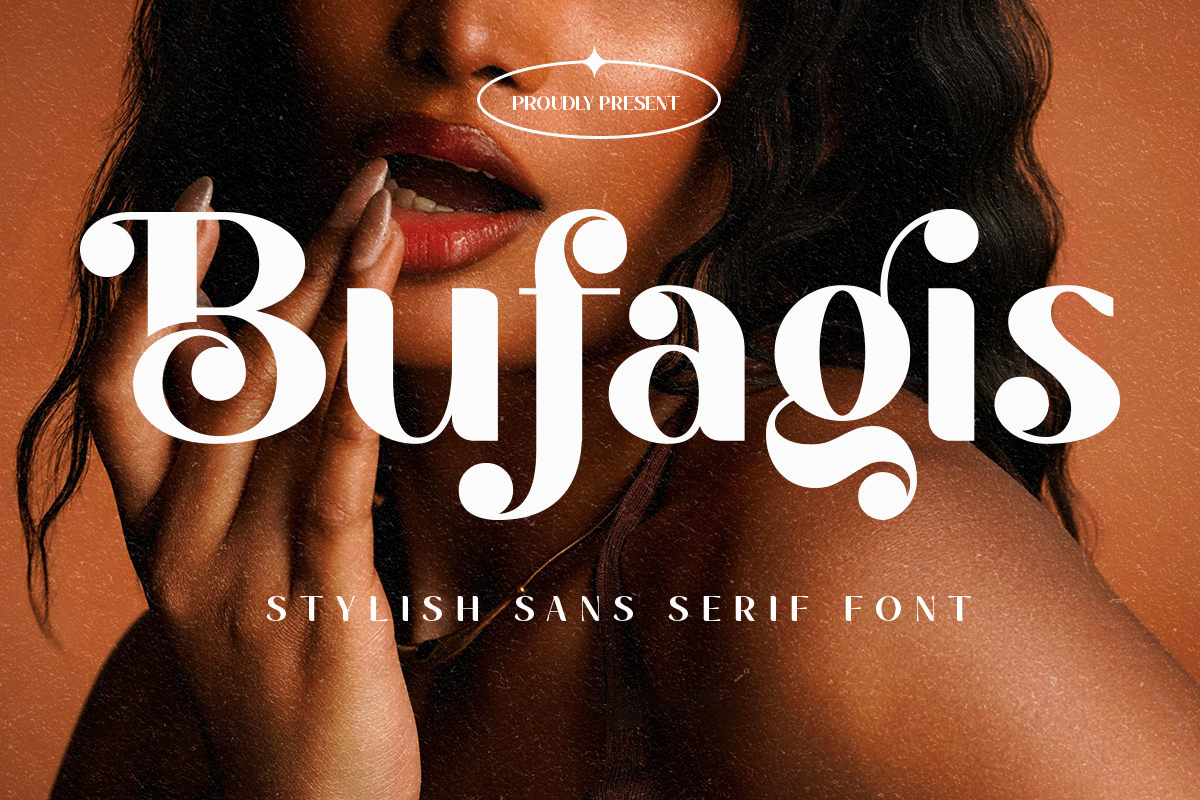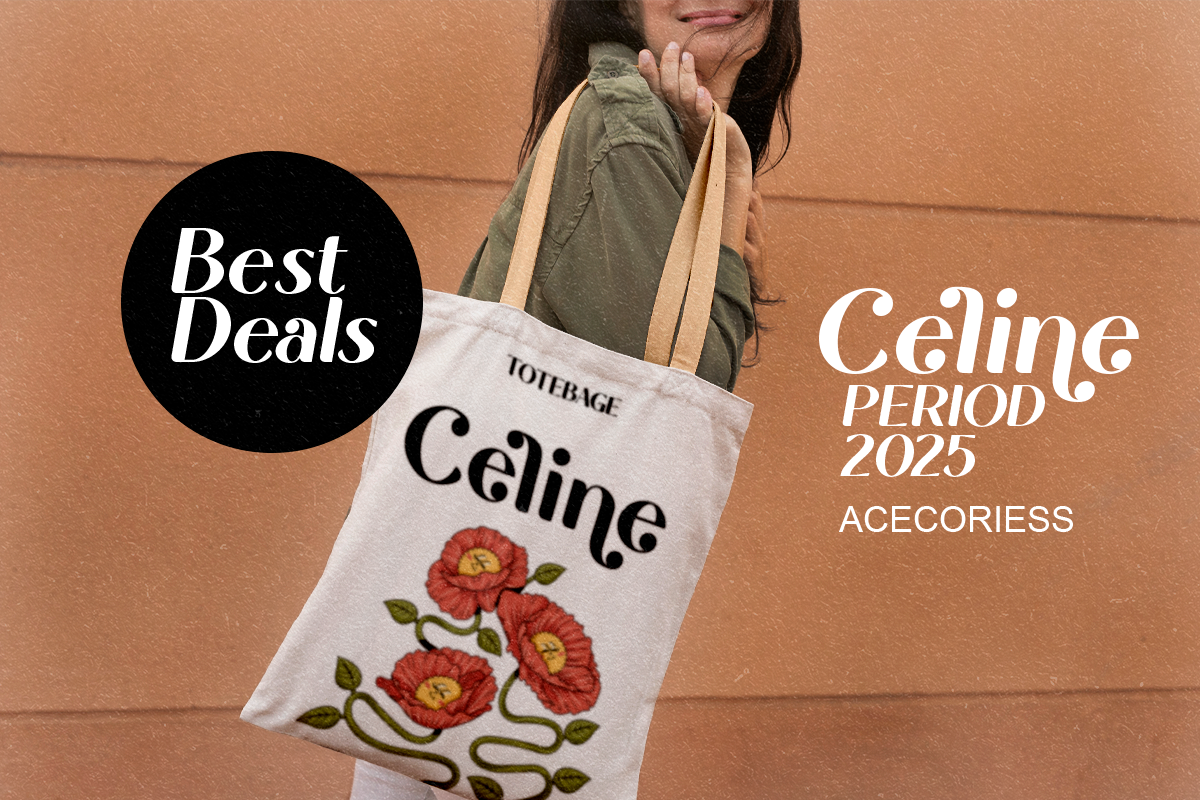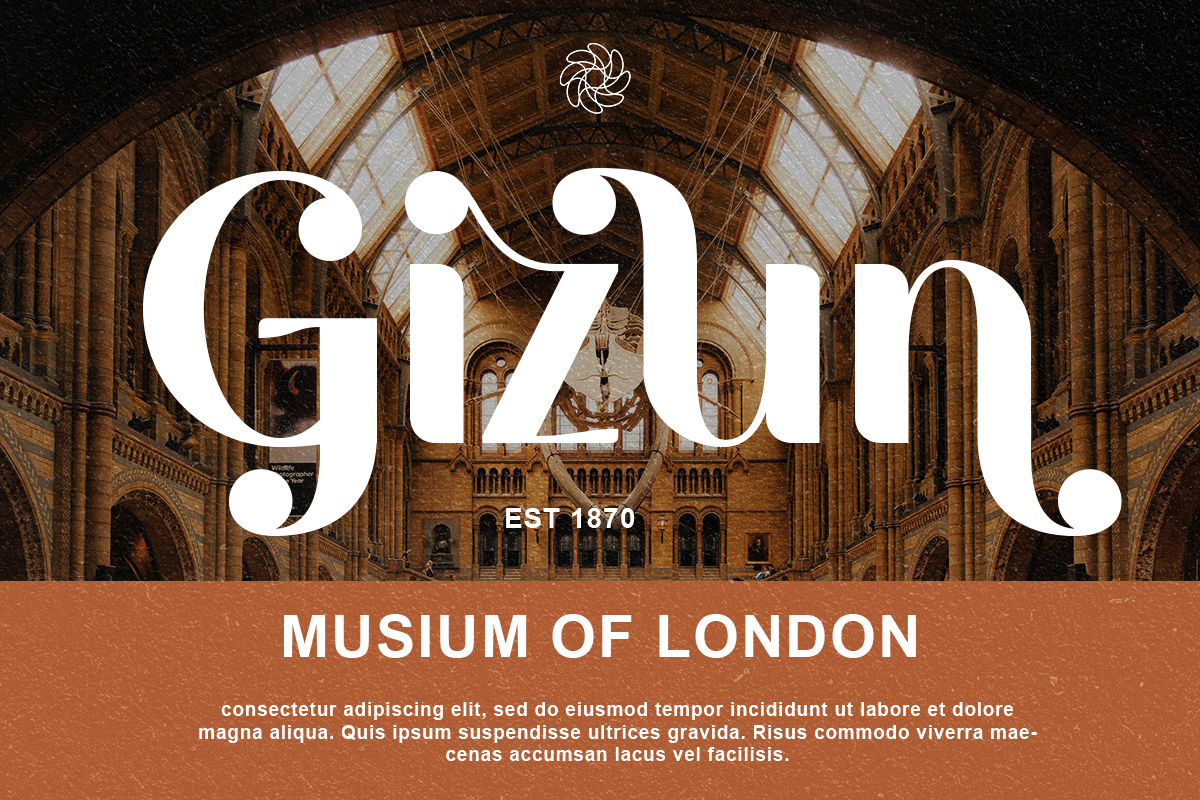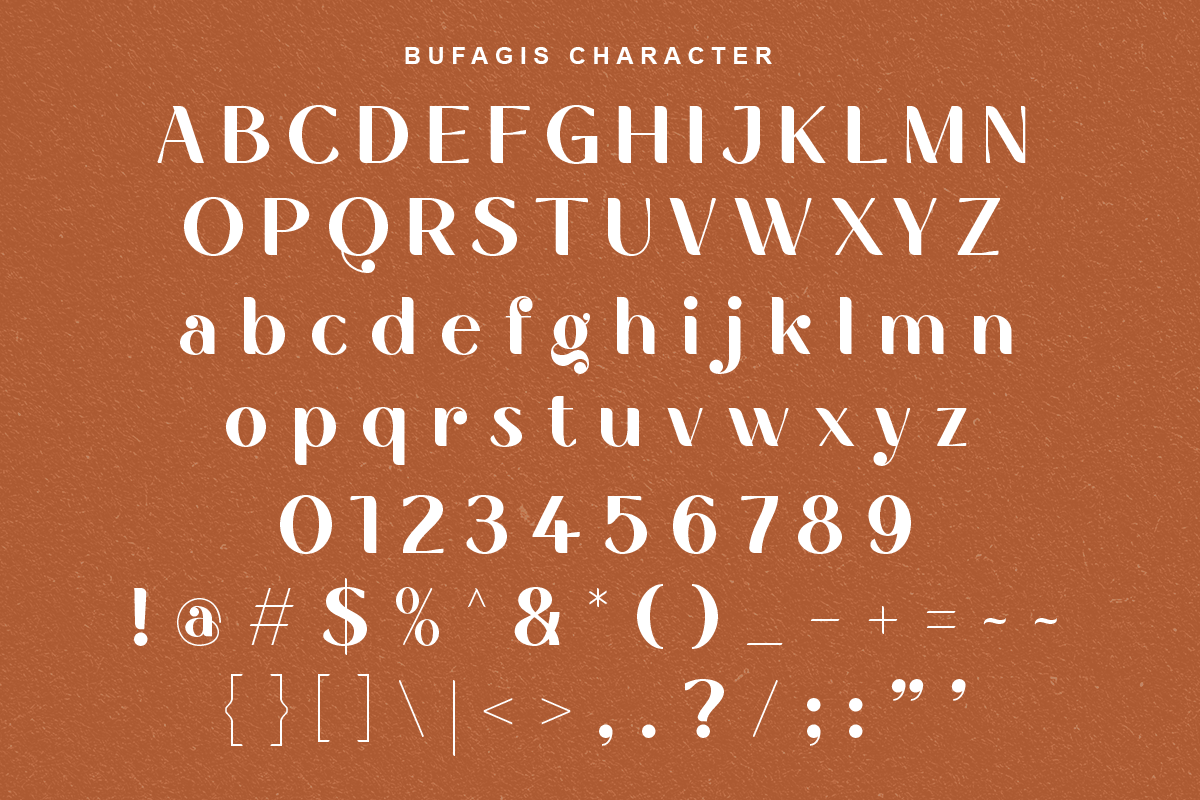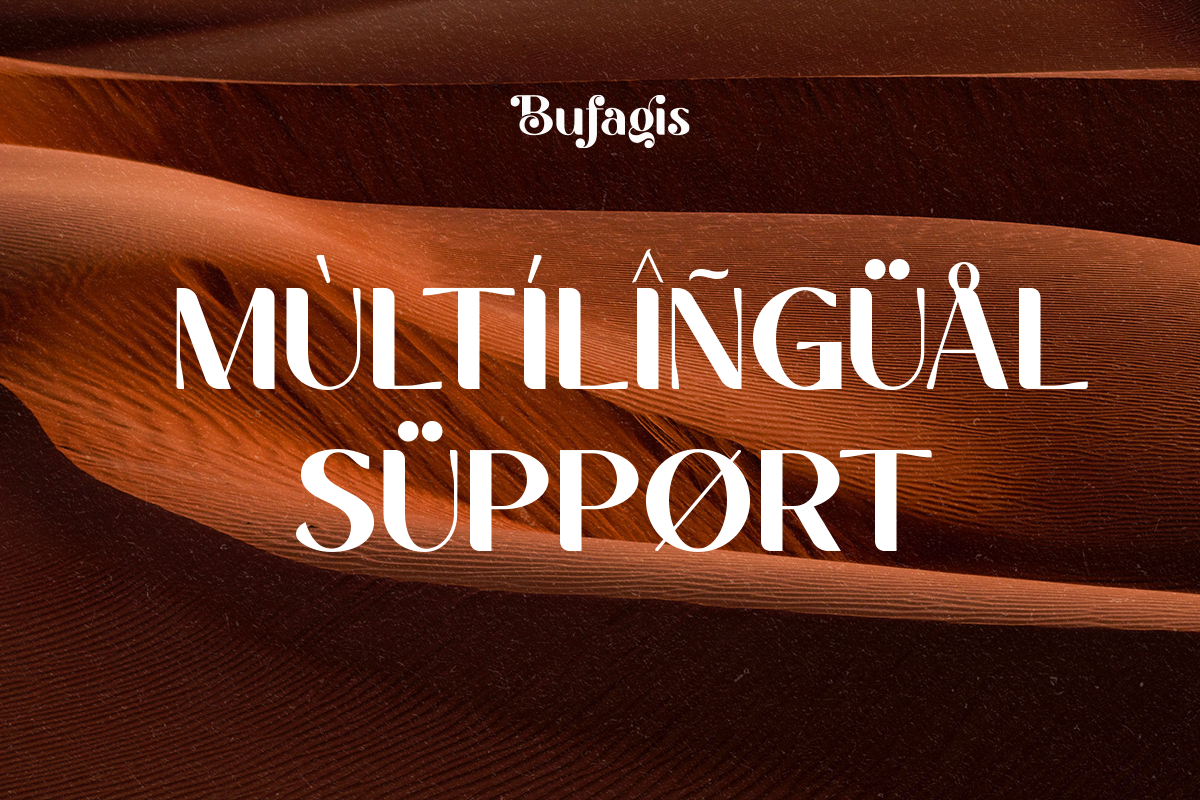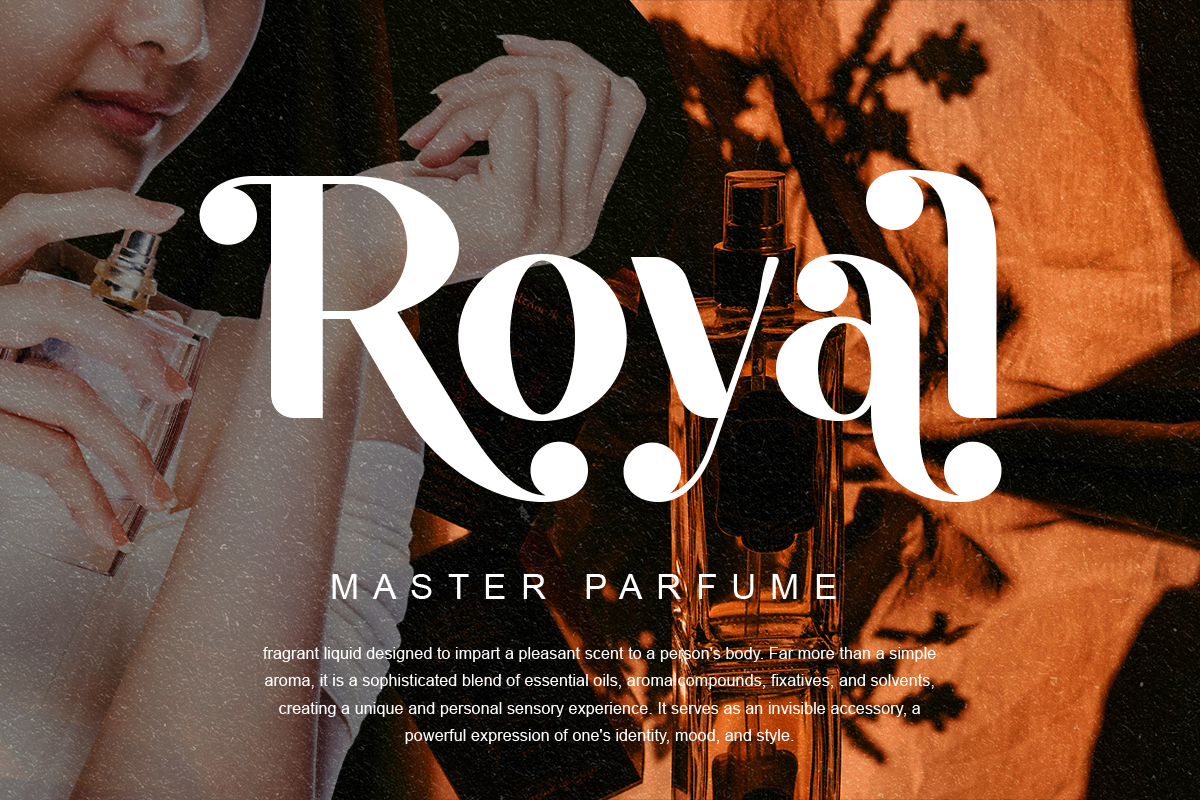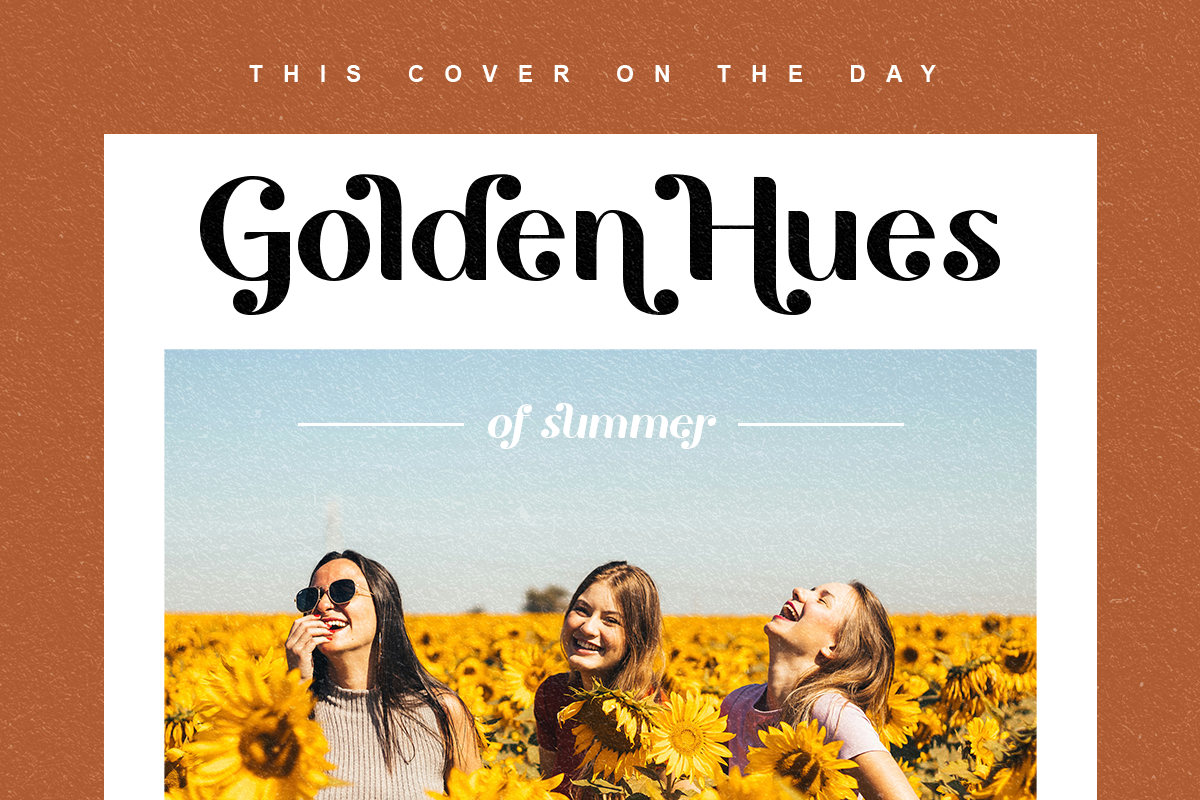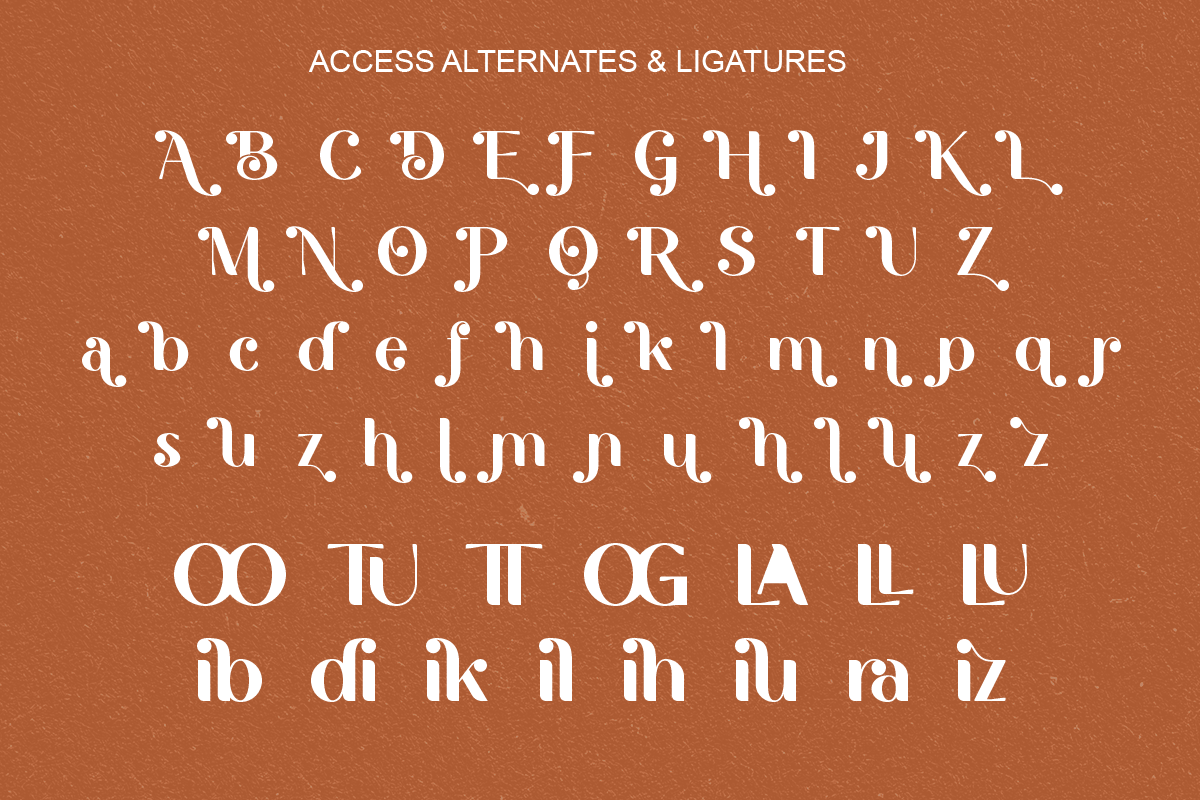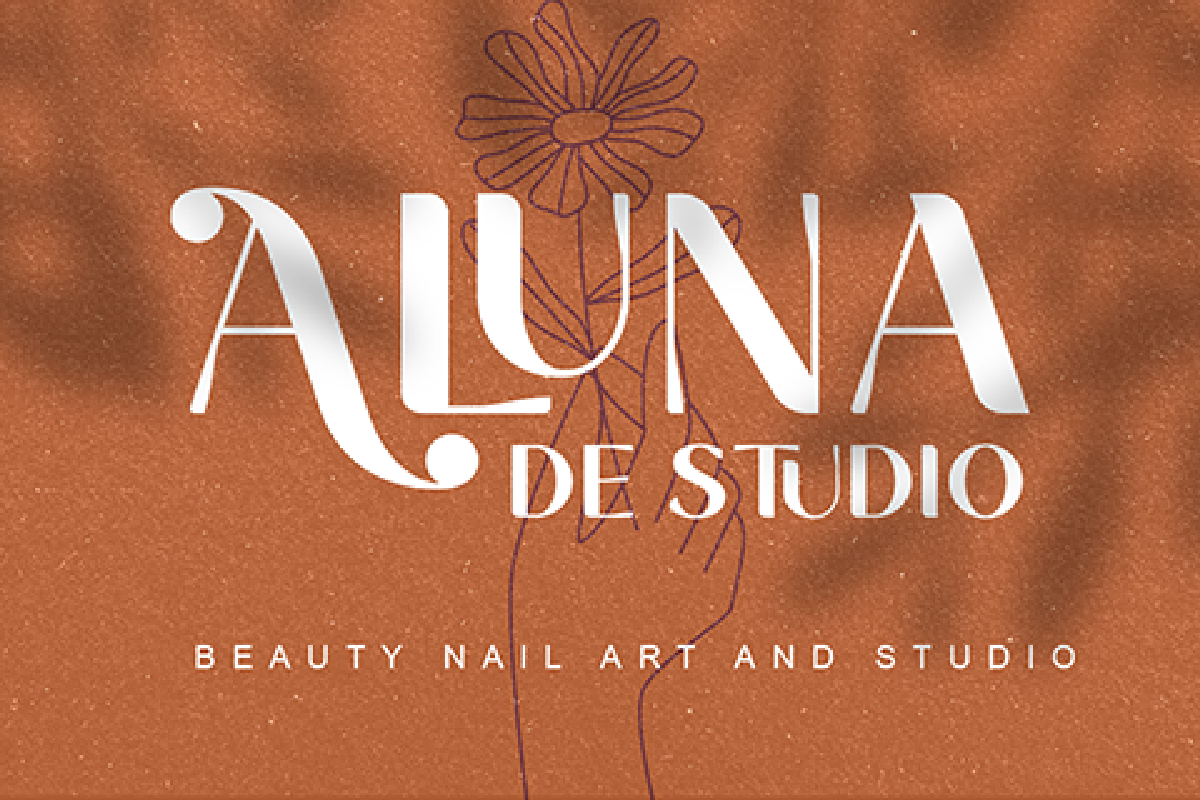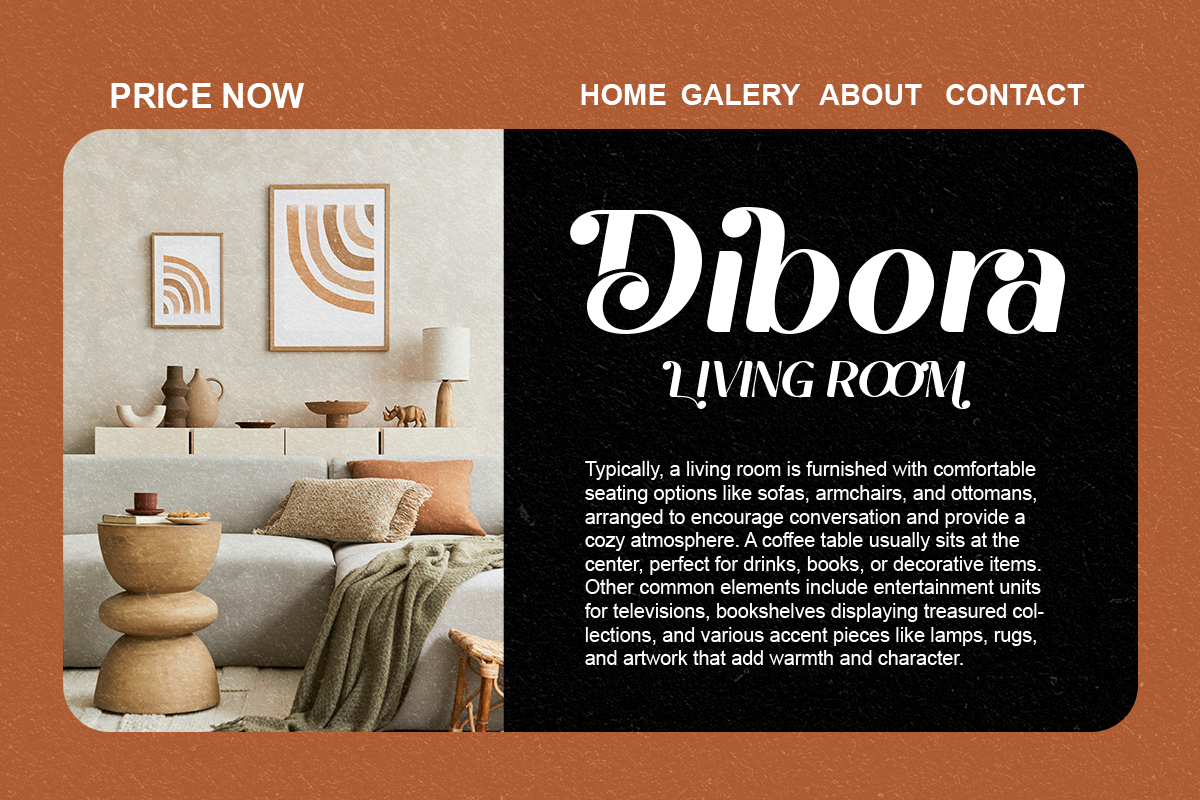
Bufagis - Stylish Sans Font
Bufagis is a stylish and elegant sans serif font. Bufagis is well-suited for advertising, branding, logotypes, packaging, titles, headlines and editorial design. I created more much alternates variant and much natural ligatures to make this font very classy and look so beauty. Bufagis was built with many alternates character make your project wil be perfect.
- Stylish Alternates